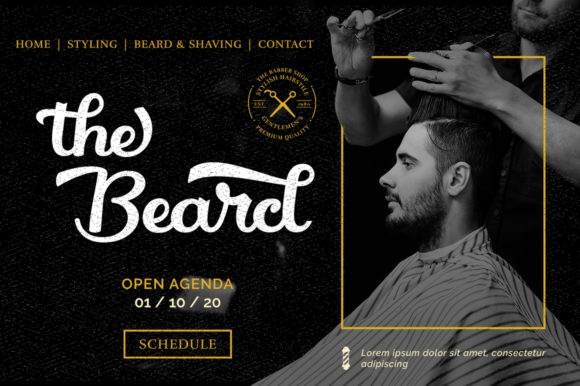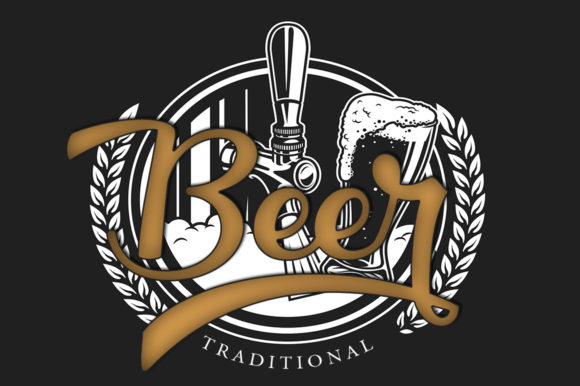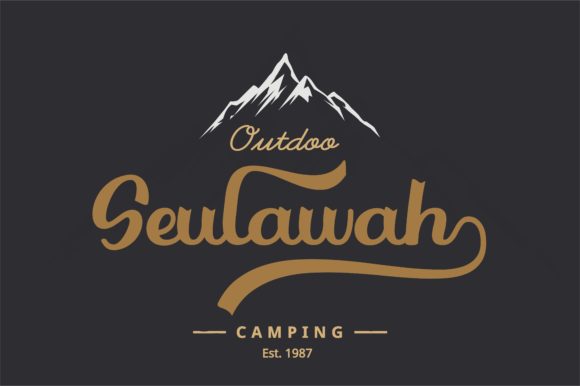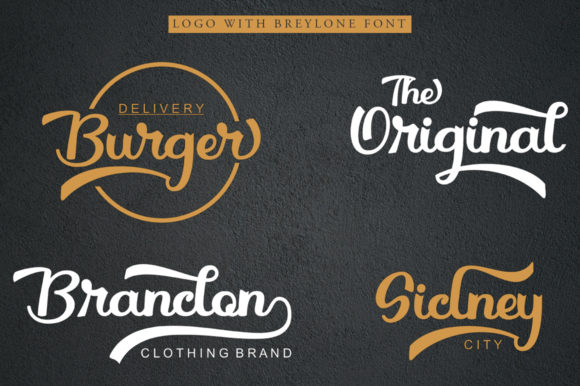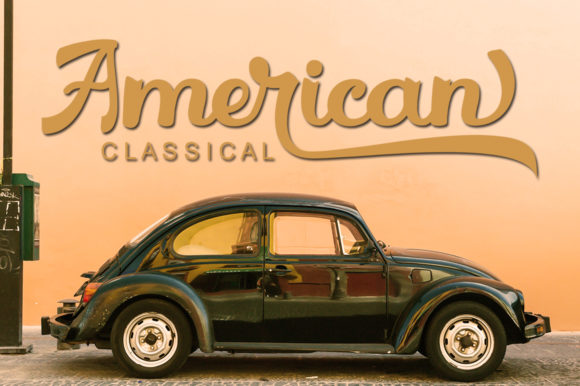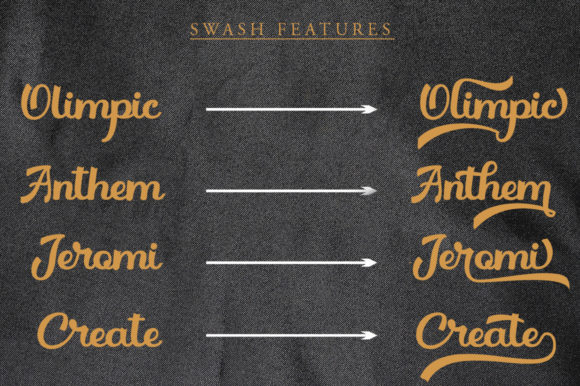
Introducing Breylone Font: A Vintage Styled, Bold Handwritten Font for Creative Projects
Are you a designer or crafter looking for a unique and stylish font to elevate your creative projects? Look no further than Breylone Font, a vintage styled, bold handwritten font that is perfect for a wide range of applications. From logos and wedding invitations to headings, t-shirts, and more, Breylone Font is the perfect choice for anyone looking to add a touch of elegance and sophistication to their work.
What is Breylone Font?
Breylone Font is a carefully crafted, bold handwritten font that is inspired by the classic scripts of the past. With its bold lines, flowing curves, and vintage charm, Breylone Font is the perfect choice for anyone looking to add a touch of nostalgia and whimsy to their designs. Whether you’re creating a logo, invitation, or signage, Breylone Font is sure to make a statement.
Key Features of Breylone Font
• Vintage Styled: Breylone Font has a unique, vintage charm that is sure to evoke memories of a bygone era.
• Bold Handwritten: With its bold lines and flowing curves, Breylone Font is the perfect choice for anyone looking to make a statement.
• Versatile: Breylone Font can be used for a wide range of applications, including logos, wedding invitations, headings, t-shirts, letterhead, signage, labels, news, posters, badges, and more.
• Elegant and Sophisticated: Breylone Font has an air of elegance and sophistication that is sure to elevate your designs.
Uses for Breylone Font
Breylone Font is a versatile font that can be used for a wide range of creative projects, including:
• Logos: Create a unique and memorable logo for your business or brand with Breylone Font.
• Wedding Invitations: Add a touch of elegance and sophistication to your wedding invitations with Breylone Font.
• Headings: Use Breylone Font to create bold and eye-catching headings for your website, blog, or social media channels.
• T-Shirts: Create custom t-shirts with Breylone Font for a unique and stylish look.
• Signage: Use Breylone Font to create eye-catching signage for your business or event.
• Labels: Create custom labels with Breylone Font for a professional and polished look.
• News: Use Breylone Font to create bold and eye-catching headlines for your newspaper or magazine.
• Posters: Create stunning posters with Breylone Font for a unique and eye-catching look.
• Badges: Use Breylone Font to create custom badges for your business or event.
Why Choose Breylone Font?
There are many fonts to choose from, but Breylone Font stands out from the rest. Here are just a few reasons why:
• Unique and Distinctive: Breylone Font has a unique and distinctive style that is sure to set your designs apart.
• High-Quality: Breylone Font is a high-quality font that is carefully crafted to ensure that it looks great in any application.
• Easy to Read: Despite its bold lines and flowing curves, Breylone Font is easy to read and understand.
• Versatile: Breylone Font can be used for a wide range of applications, making it a great choice for designers and crafters.
If you’re looking for a unique and stylish font to elevate your creative projects, look no further than Breylone Font. With its vintage charm, bold lines, and flowing curves, Breylone Font is the perfect choice for anyone looking to add a touch of elegance and sophistication to their designs. Whether you’re a designer or crafter, Breylone Font is sure to become a favorite in your collection.